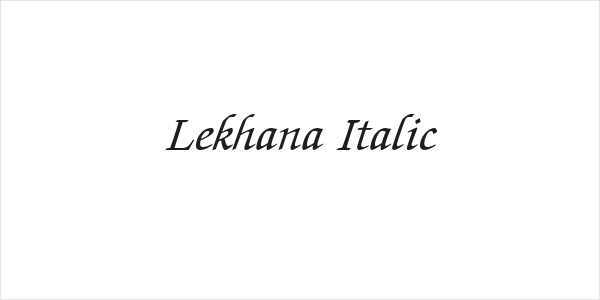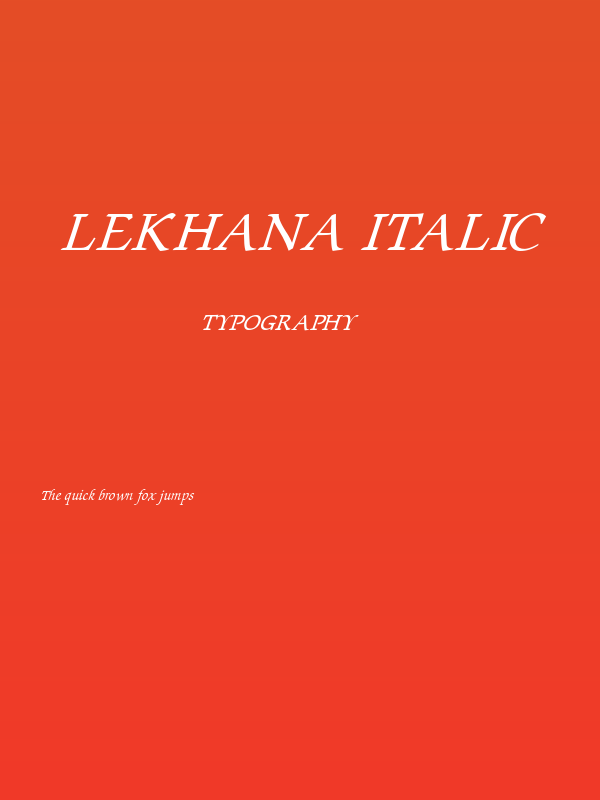
Lekhana Italic Font
Lekhana Italic Description
This font features a classic italic style with elegant, flowing lines that convey a sense of sophistication and grace. The characters are slightly slanted to the right, enhancing the fluidity and dynamic appearance of the text. The strokes are moderately thick, providing a balanced contrast that ensures readability while maintaining an artistic flair. The serifs are subtle yet distinct, adding a touch of traditional charm. This font is versatile, suitable for both formal and creative applications, making it ideal for projects that require a refined and polished look.
| Proposed Projects | Ideal for wedding invitations, formal documents, branding, and editorial design. |